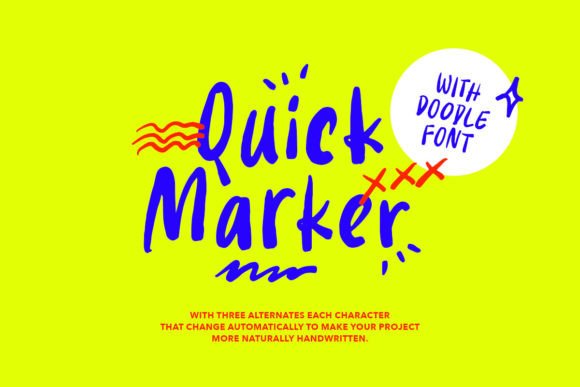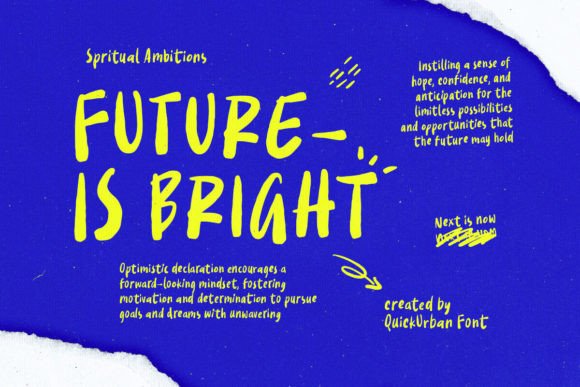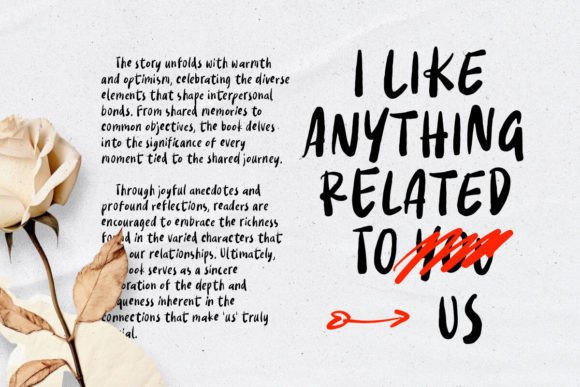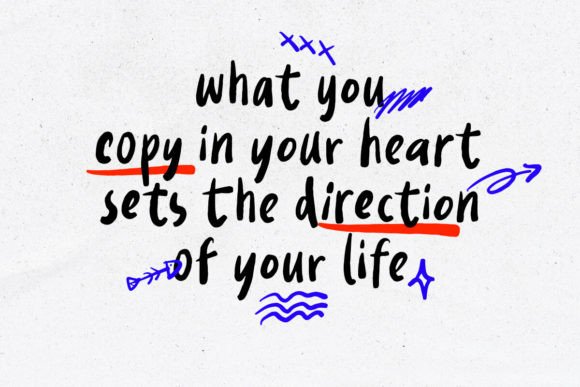
Quick Marker Font
About the Quick Marker Font
Let us introduce you to Quick Marker Font, where timeless design meets modern craftsmanship. Quick Marker is a handwritten font with bold and unique looks. With 3 sets for each character, you can activate the Contextual Alternates in Opentype Features from Adobe Photoshop/Illustrator to make the characters change automatically so your words or design looks more naturally handwritten. Comes with doodles in font format that will complete and complement your projects. You can use this font for any project such as branding, street art, quotes, and tagline.
Quick Marker’s bold, expressive style is ideal for headlines, short text blocks, and branding elements where a hand-drawn feel is desired. It excels in applications like posters, social media graphics, and packaging for products targeting a youthful or creative audience. However, its highly variable nature makes it unsuitable for body text or UI elements requiring consistent readability.
Consider pairing Quick Marker with a clean sans-serif like Montserrat for a balanced contrast, or a geometric sans-serif for a modern feel. A playful script font could also complement its hand-drawn charm, creating a cohesive yet dynamic visual hierarchy. Avoid pairing it with overly ornate or delicate fonts which might clash with its strong personality.
Its core personality is energetic and informal, conveying a sense of spontaneity and authenticity. Brands focused on creativity, street style, or handcrafted products will find Quick Marker particularly effective.
Quick Marker Font Usage Examples
Quick Marker Font Example